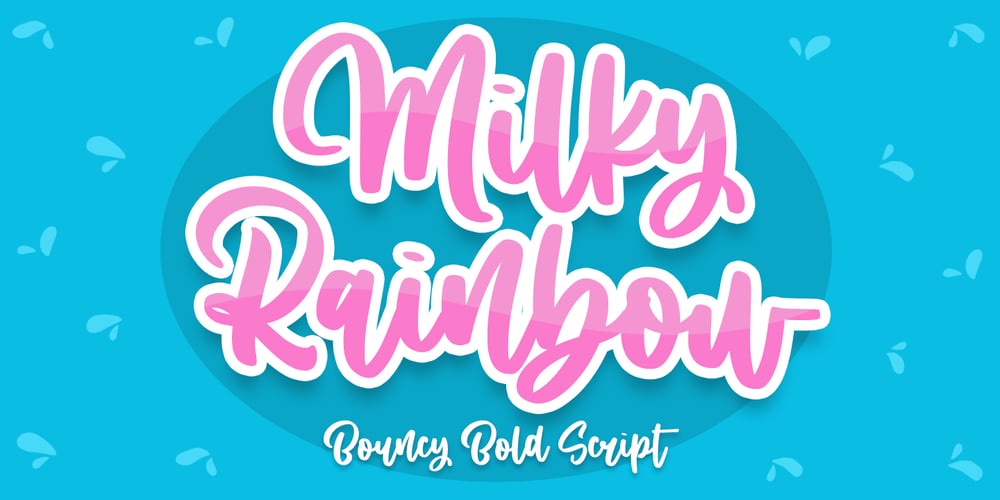
Milky Rainbow
Milky Rainbow font
Milky Rainbow Font Family was designed by Abo Daniel and published by Abo Daniel. Milky Rainbow contains 1 styles and family package options. introducingMILKY RAINBOW- Bold and Bouncy Handwritten Font -MILKY RAINBOW is natural handwritten font. come with a bold style, it is very eye-catching.It is great for packaging, branding, quotes, cards, banner, book, cutting, silhouette, social media content, and anything of your craft project.I created some ligatures to make it look so natural.Features:- Uppercase- Lowercase- Number & punctuations- Multilingual- PUA encodedI hope you love it.regards,Abo Daniel Studio